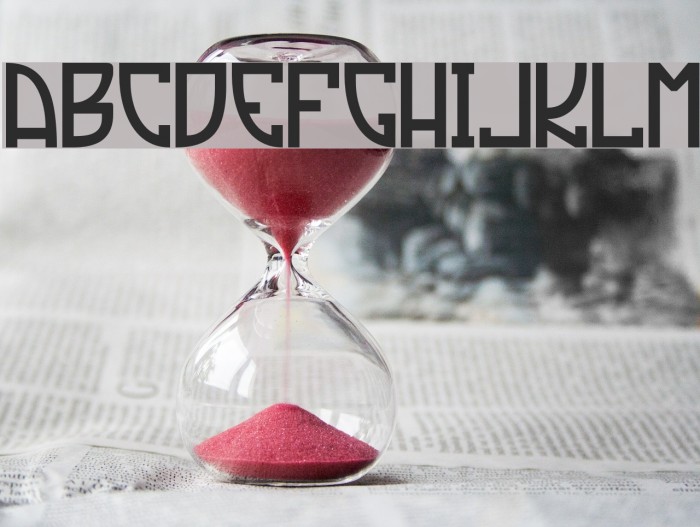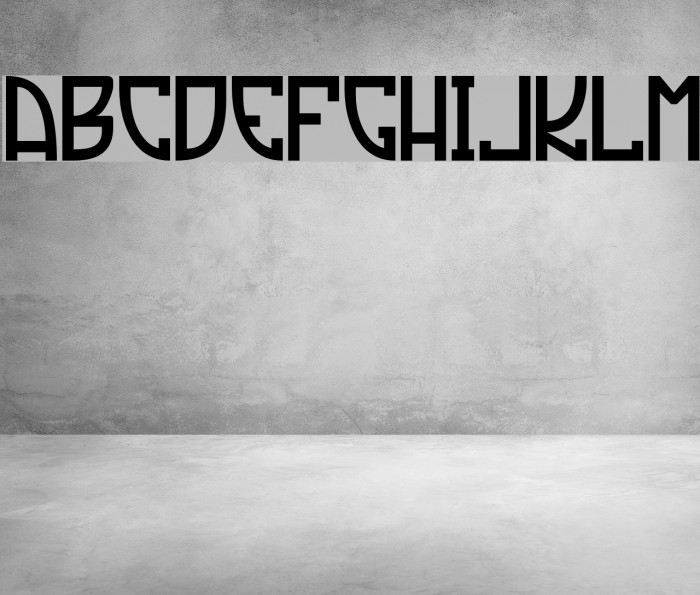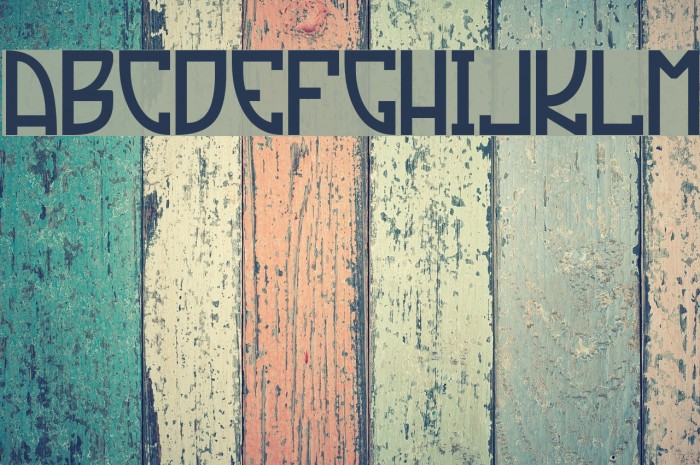
Tradizione Font
This font features a bold, geometric design with a modern and structured appearance. The characters are crafted with sharp angles and clean lines, creating a sense of precision and strength. The uppercase letters are particularly striking, with a uniform height and consistent stroke width that enhances readability. The numerals and special characters maintain the same geometric style, ensuring a cohesive look across all text elements. This font's distinct style makes it suitable for projects that require a contemporary and impactful visual presence.
A bold, geometric font with sharp angles and clean lines, ideal for modern designs.
- Proposed Projects: Perfect for branding, posters, headlines, and any project that requires a strong, modern aesthetic.